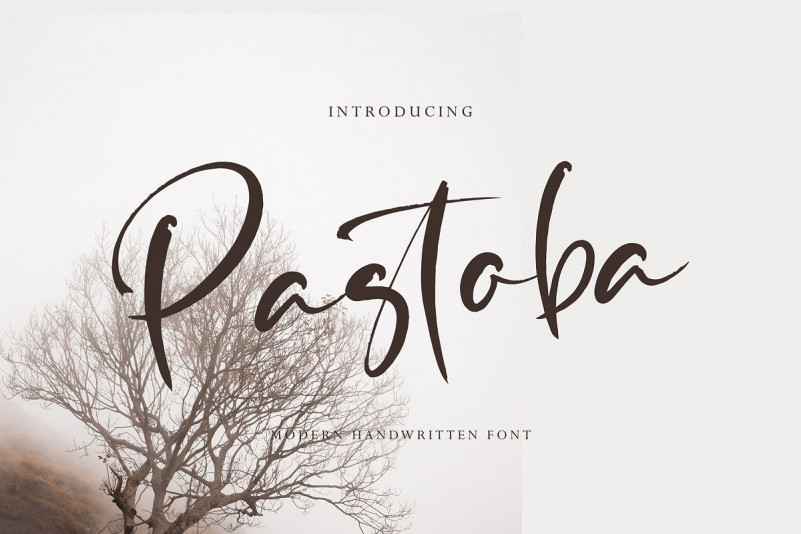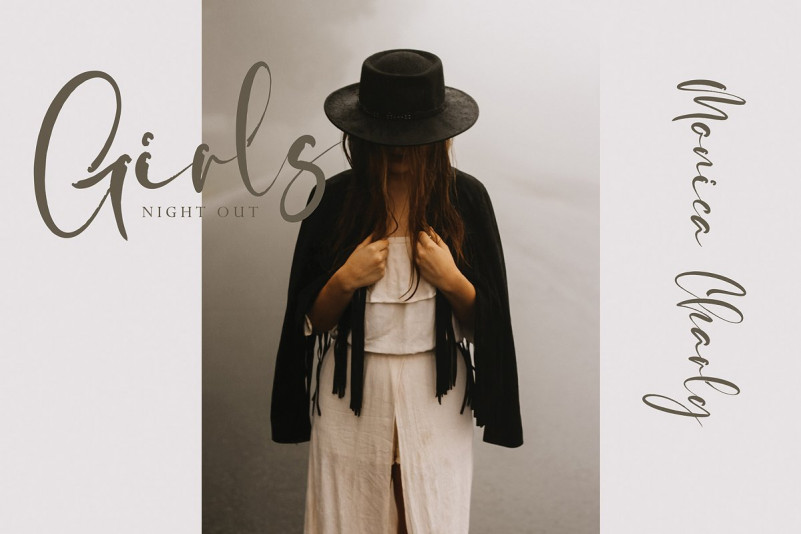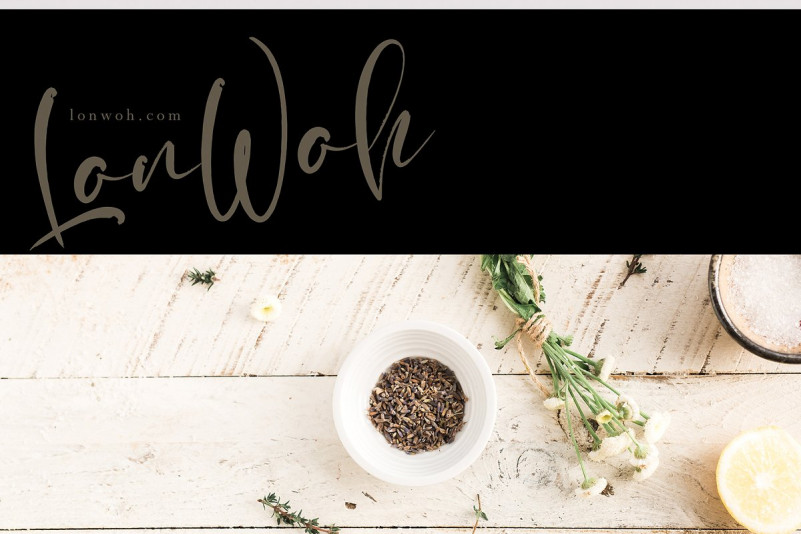
Pastoba Font
Pastoba handwritten font with new style, this font will perfect for many different project ex: quotes, logo, blog header, poster, banding, fashion, apparel, letter, invitation, stationery, etc…